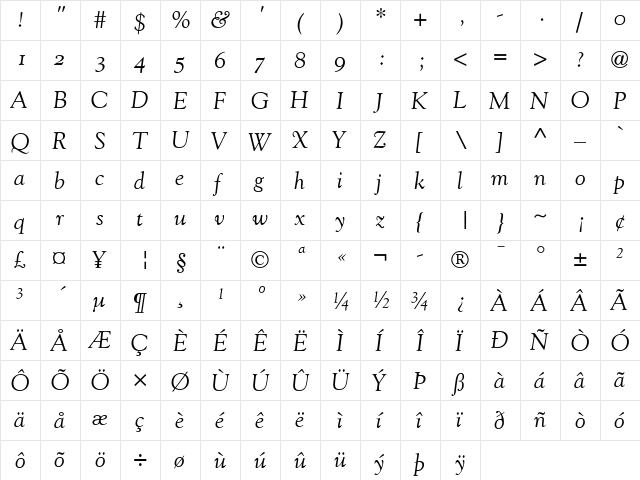
Goudy SC Italic
Design Context for Goudy SC Typeface
Goudy SC offers clean, dependable letterforms without strong stylistic allegiance, making it a practical choice for designers who need flexibility. The slanted form adds forward momentum and visual energy.
Pro Tip: Use Goudy SC for emphasis, pull quotes, and subheadings where its slanted energy can add rhythm to the layout.